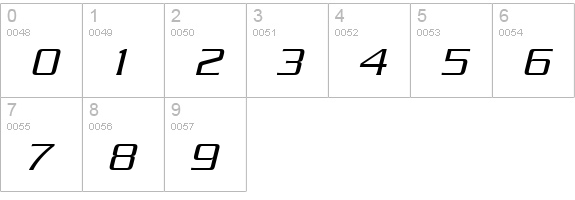
Boost Light SSi Light Italic is a refined, elegant, italic variant in the Boost typeface family \xE2\x80\x94 well suited to elegant body text, refined sub-headings, and luxury branding.
Boost Light SSi Light Italic font is a sleek and elegant typeface that exudes modernity and sophistication. Its distinctive italicized style adds a touch of flair to any design project, making it perfect for headings, titles, and other display purposes. The light weight of the font gives it a delicate and refined appearance, making it ideal for creating a sense of elegance and sophistication. What's even better is that Boost Light SSi Light Italic font is available for free download at FontsMarket.com. This means you can easily access this stylish font to elevate your designs without any cost. Don't miss out on the opportunity to enhance your projects with this high-quality typeface that is not only visually appealing but also free to use. Download Boost Light SSi Light Italic font today and add a touch of modern sophistication to your designs!